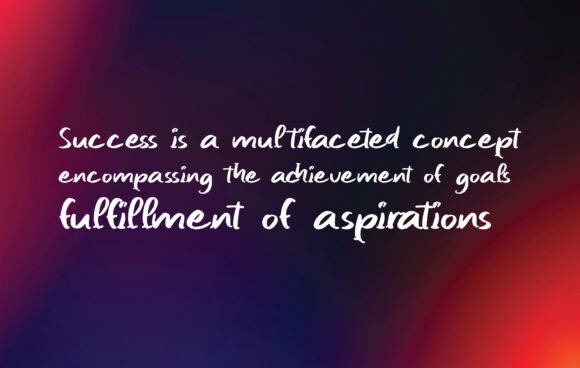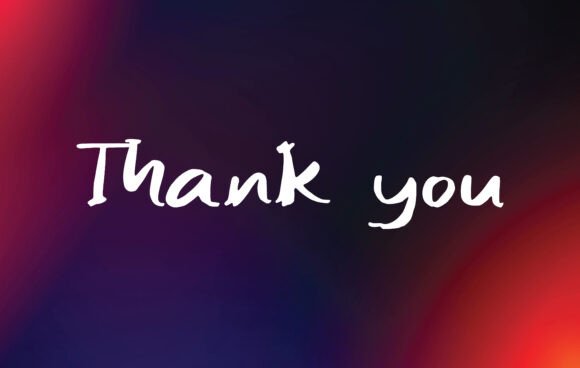
The Ultimate Creative Companion: Bradley Font
Have you ever been stuck in a creative rut, staring blankly at a blank page, waiting for inspiration to strike? We’ve all been there. But what if I told you that there’s a font that can help spark those creative juices and take your ideas to new heights?
Meet the Bradley Font, a stunning handwritten font that’s designed to make your creative vision come alive. Whether you’re working on a logo, branding project, or simply want to add a touch of elegance to a quote, this font is the perfect companion. With its beautiful, flowing lines and expressive character, the Bradley Font is a valuable tool for designers looking to add a personal touch to their work.
Bradley Font Key Features
- Font Family: Bradley (includes Bradley Rough and Bradley Smooth)
- Unique Characteristics: Distinctive letterforms with a rough, hand-drawn feel, particularly in the Bradley Rough variant
- Style: Includes both rough and smooth versions, offering flexibility for designers to choose the look that best suits their project
Bradley Font Review
Overall, I’d say the Bradley font is a solid choice for anyone looking for a classic, elegant feel. Here are some things that work well:
- ✨ The font’s high x-height makes it highly legible, even at smaller sizes.
- ✨ Bradley’s distinctive flair and terminals give it a unique character that’s perfect for branding and advertising.
- ✨ The font is well-suited for both print and digital applications, making it a versatile choice for designers.
- ⚠️ The font can feel a bit too ornate for some designs, particularly those that require a more minimalist aesthetic.
- ⚠️ Some users may find the font’s flair and terminals distracting or difficult to read at very small sizes.
In terms of overall impression, I’d say the Bradley font is a great choice for designers who want to add a touch of sophistication and elegance to their work. While it may not be the best fit for every project, it’s definitely worth considering for branding, advertising, and other high-end applications.
Tips for Getting the Most Out of Bradley Font
For optimal results, use Bradley Font in headings and titles to create a clear visual hierarchy. Pair it with a sans-serif font for body text to achieve a balanced design.
Bradley Font is ideal for:
- Creating elegant and sophisticated designs.
- Adding a touch of vintage flair to modern designs.
- Designing wedding invitations, menus, and other formal materials.
Alternatives to Bradley Font
Playfair Display is a luxurious, elegant serif font perfect for high-end designs. It’s ideal for use in headings, titles, and other prominent text elements. This font has a more ornate and complex design compared to Bradley Font, which makes it a great choice for creating a sophisticated and luxurious feel.
Similarity: Both fonts have a classic feel, but Playfair Display is more ornate and luxurious. Difference: Bradley Font is more versatile and can be used in a wider range of designs, while Playfair Display is best suited for high-end and luxurious designs.
Didot is a classic serif font with a elegant and refined feel. It’s ideal for use in headings, titles, and other prominent text elements. This font has a more subtle and understated design compared to Bradley Font, which makes it a great choice for creating a sophisticated and elegant feel.
Similarity: Both fonts have a classic feel, but Didot is more understated and refined. Difference: Bradley Font is more versatile and can be used in a wider range of designs, while Didot is best suited for elegant and sophisticated designs.
Bodoni is a classic serif font with a elegant and refined feel. It’s ideal for use in headings, titles, and other prominent text elements. This font has a more geometric and structured design compared to Bradley Font, which makes it a great choice for creating a sophisticated and elegant feel.
Similarity: Both fonts have a classic feel, but Bodoni is more geometric and structured. Difference: Bradley Font is more versatile and can be used in a wider range of designs, while Bodoni is best suited for elegant and sophisticated designs.